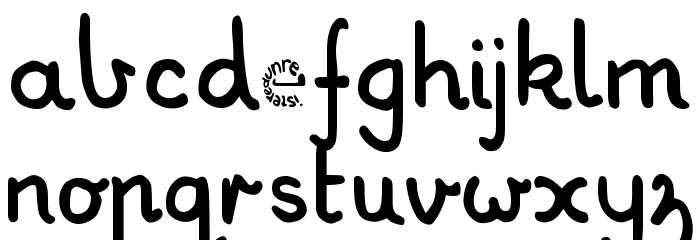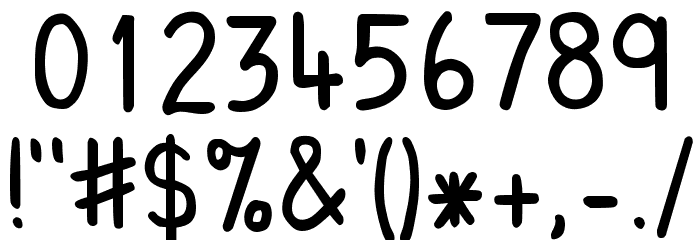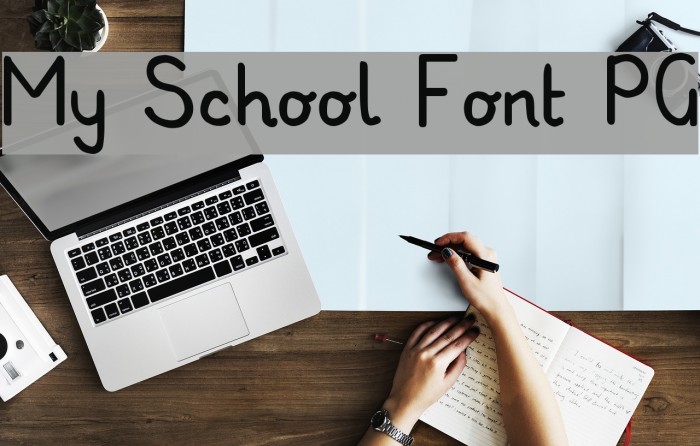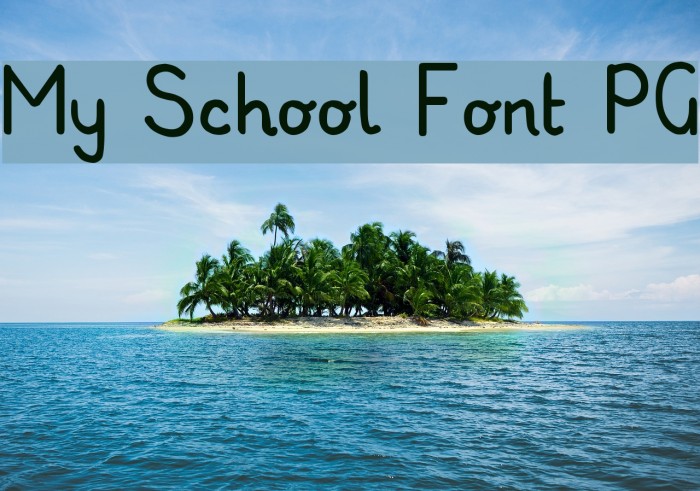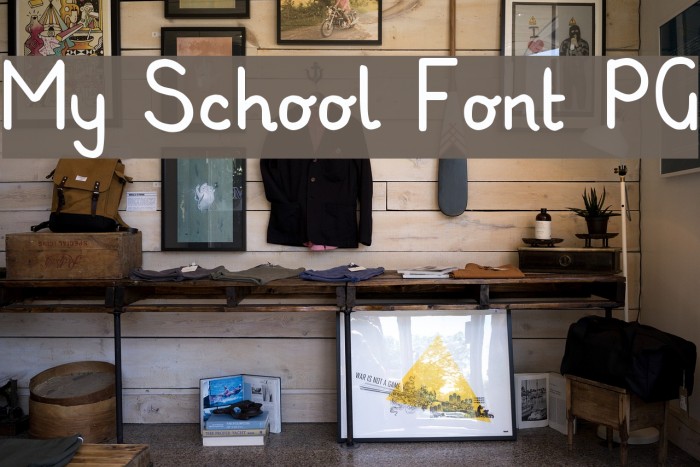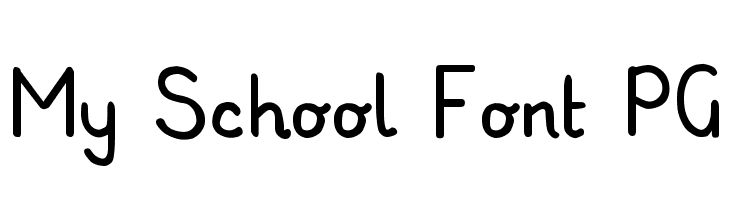
My School Font PG Font
This playful and rounded font features a handwritten style with a friendly and approachable appearance. The characters are slightly irregular, adding a whimsical touch that is perfect for informal and creative projects. The uppercase letters are bold and clear, while the lowercase letters maintain a consistent flow with a touch of quirkiness. Numbers and special characters follow the same playful design, making this font versatile for various uses. The overall design is clean yet expressive, making it suitable for children's materials, educational content, and casual branding.
A playful, rounded handwritten font with a friendly and whimsical style.
- Proposed Projects: Ideal for children's books, educational materials, casual branding, and creative projects.
- Overall Style: Playful, Casual
- Use Case: Headlines, Logos, Educational content